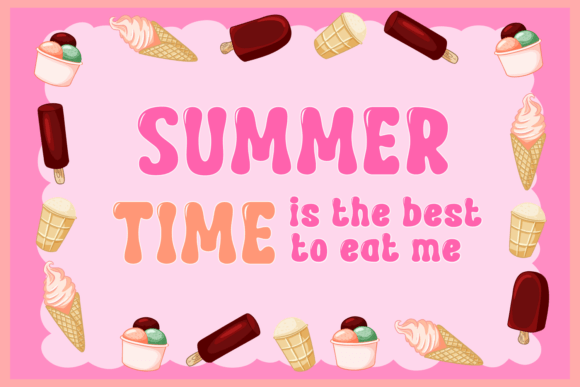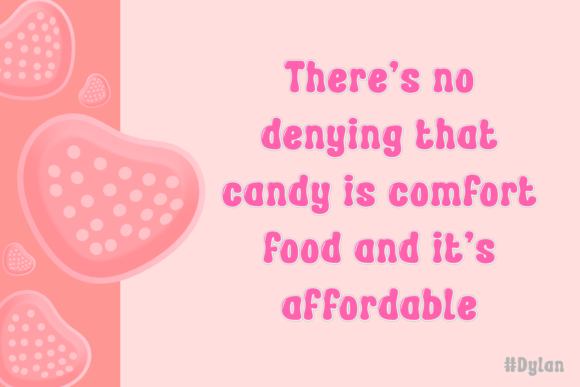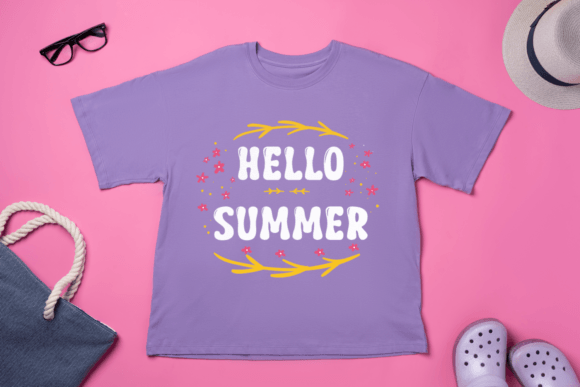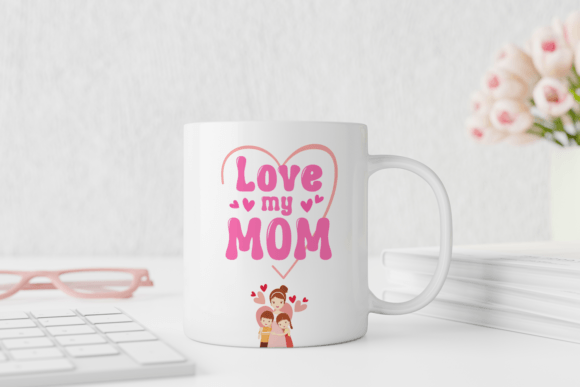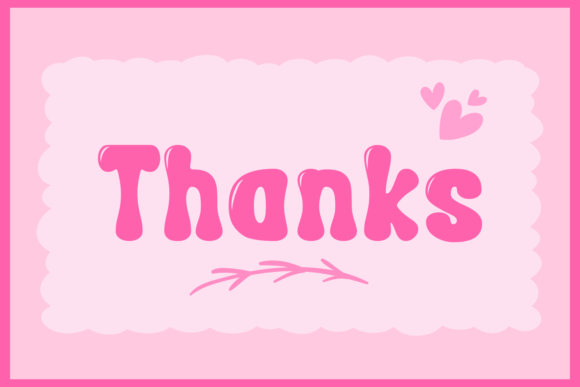
Introducing Happy Yummy Font: The Sweetest Way to Elevate Your Food Designs
Are you a designer, crafty enthusiast, or food blogger looking for the perfect typography to make your culinary creations pop? Look no further than Happy Yummy Font, the ultimate display font that will tantalize your taste buds and delight your eyes. With its elegant curves and deliciously crafted letterforms, this font is the perfect addition to any food-related design.
The Perfect Blend of Style and Flavor
Happy Yummy Font is more than just a typography – it’s an experience. Its unique design combines the sophistication of elegant curves with the playfulness of a handwritten font, making it perfect for a wide range of applications, from restaurant menus and food packaging to cookbooks and food blogs. Whether you’re looking to add a touch of whimsy or a dash of sophistication to your designs, Happy Yummy Font is the perfect choice.
Key Features of Happy Yummy Font
- Elegant Curves: Happy Yummy Font features smooth, flowing curves that give it a sophisticated and refined look.
- Deliciously Crafted Letterforms: Each letterform is carefully crafted to resemble the shapes and curves of delicious food, making it perfect for food-related designs.
- Versatile: Happy Yummy Font can be used for a wide range of applications, from digital designs to print materials.
- Easy to Read: Despite its elegant design, Happy Yummy Font is easy to read, making it perfect for use in menus, recipes, and other applications where legibility is important.
Why Choose Happy Yummy Font?
With so many fonts to choose from, why should you choose Happy Yummy Font for your food-related designs? Here are just a few reasons:
- Unique Design: Happy Yummy Font has a unique design that will set your designs apart from the competition.
- Food-Themed: The font’s food-themed design makes it perfect for food-related applications, from restaurant menus to food blogs.
- High-Quality: Happy Yummy Font is a high-quality font that will elevate your designs and give them a professional look.
How to Use Happy Yummy Font
- Pair it with Other Fonts: Happy Yummy Font pairs well with other fonts, making it easy to create visually appealing combinations.
- Experiment with Colors: The font’s elegant design looks great in a variety of colors, from bold and bright to soft and pastel.
- Use it for Headings: Happy Yummy Font is perfect for use in headings, where its elegant design can really shine.
In conclusion, Happy Yummy Font is the ultimate display font for food-related designs. With its elegant curves, deliciously crafted letterforms, and versatile design, it’s perfect for a wide range of applications. Whether you’re a designer, crafty enthusiast, or food blogger, Happy Yummy Font is sure to elevate your designs to the next level. So why wait? Indulge in the art of typography and try Happy Yummy Font today!